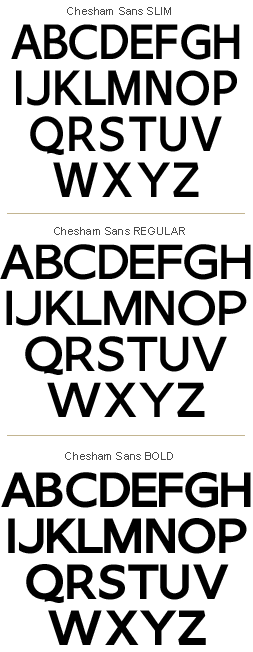
LHF Chesham Sans Classic hand-lettered typeface. Often (however
misnamed) referred to as "signpainter's Gothic." Set includes
4 styles in Open Type format: Regular, Bold, Slim and Light. A refreshing alternative
to the over-used Helvetica styles.